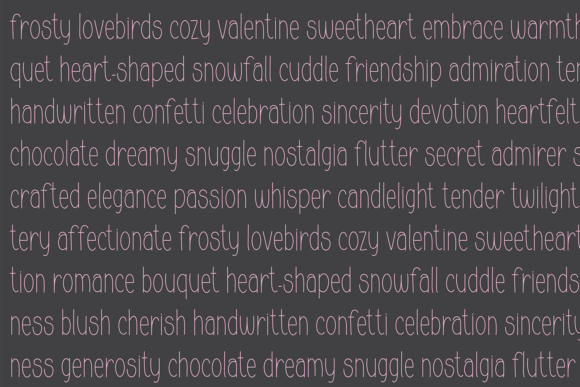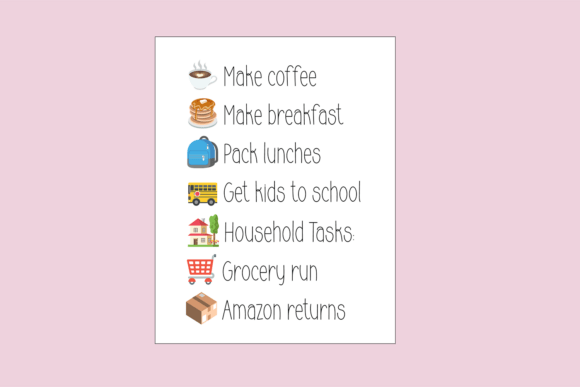
Introduction to Heart-shaped Font
Introducing a delightfully delicate and sleek handwriting font, ideal for enhancing your crafting projects and enriching your GoodNotes experience.
This charming font intertwines a chic and slender design with elements of whimsy, adding a touch of intimate charm to your creative ventures Infuse your crafts with personality and let your GoodNotes come alive with this elegantly playful skinny handwriting font.
Key Features of Heart-shaped Font